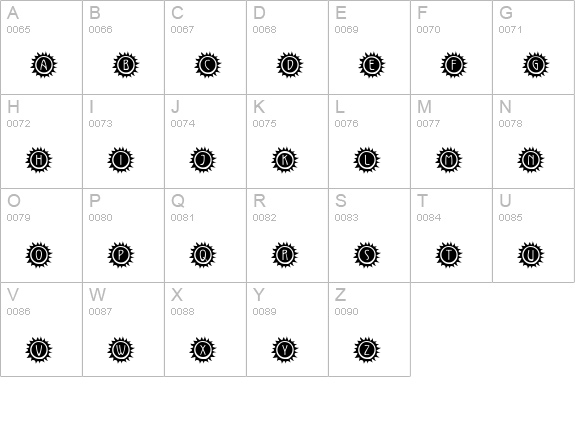
KR California Sun font is a vibrant and playful typeface that exudes a sunny and carefree vibe. Its rounded edges and casual style make it perfect for creating cheerful designs and adding a touch of warmth to your projects. Whether you're working on invitations, posters, or branding materials, this font will bring a sense of fun and relaxation to your work. Best of all, KR California Sun font is available for free download at FontsMarket.com. So go ahead and brighten up your designs with this delightful typeface today!